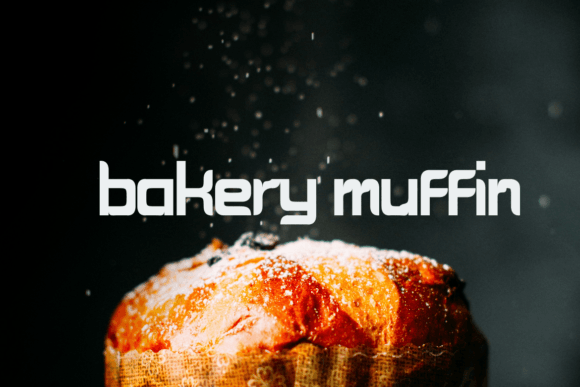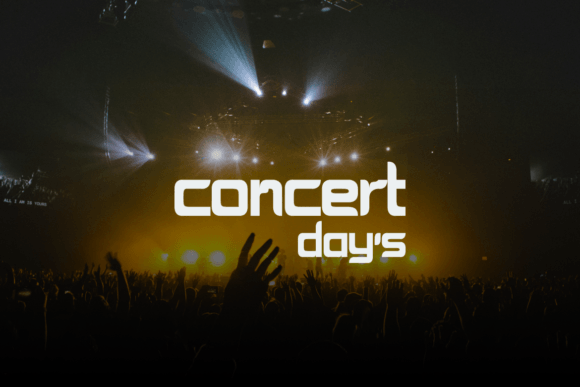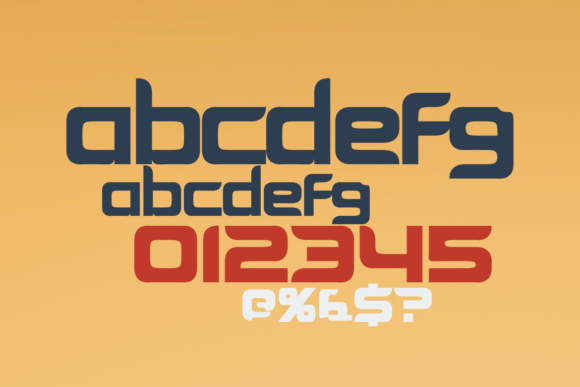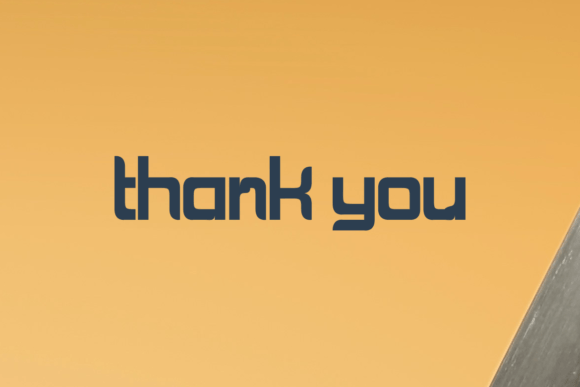
Introduction to Jiger Finder Font
Imagine you’re in the midst of a vibrant music festival, surrounded by the pulsating rhythm and the infectious energy of the crowd. The moment you glance at a poster or a flyer, it’s like a spark of creativity ignites within you. That’s the magic of the Jiger Finder Font – it has the power to elevate any design to extraordinary heights.
As a designer, you’re always on the lookout for that one design resource that can breathe life into your creative project. The Jiger Finder Font is that game-changer. With its unique blend of style and versatility, it can adapt seamlessly to any use case, from stickers to screen-printed t-shirts, and even flyers with a transparent background. The best part? It’s available for a free download, ensuring that you can bring your high-quality designs to life without breaking the bank.
Whether you’re a seasoned designer or just starting out, the Jiger Finder Font is an invaluable asset that can take your designs to the next level. So why settle for ordinary when you can unleash the extraordinary with this dynamic font?
Key Features of Jiger Finder Font
- Transparent background, making it easy to layer over various backgrounds without any visual obstruction.
- Features a bold and modern design, suitable for headings, titles, and other prominent text elements.
Honest Review: Jiger Finder Font
I recently had the opportunity to work with the Jiger Finder Font, a free download that’s been gaining popularity among designers. As a design resource, I was excited to see how it would perform in my creative project.
What works well with the Jiger Finder Font is its high quality and versatility. The font is available in various weights and styles, making it perfect for projects that require a mix of formal and informal typography. I also appreciated the transparent background, which allowed me to easily layer the font over different backgrounds.
- ✨ High-quality design with a professional finish
- ✨ Versatile with multiple weights and styles
- ✨ Transparent background for easy layering
However, I did encounter some limitations with the Jiger Finder Font. The font may not be suitable for projects that require a lot of bold or condensed text, as the font can become a bit pixelated at larger sizes. Additionally, the font is not ideal for use in small print, as the letters can become difficult to read.
Overall, I was impressed with the Jiger Finder Font and would recommend it for designers who are looking for a high-quality, free download for their creative projects.
- ⚠️ May become pixelated at larger sizes
- ⚠️ Not ideal for use in small print
The Jiger Finder Font is a high-quality, free design resource ideal for various creative projects. This versatile font features a transparent background, making it suitable for both light and dark backgrounds.
Tips for Getting the Most Out of Jiger Finder Font
Experiment with different font sizes, colors, and styles to achieve the desired effect in your design project.
The Jiger Finder Font is ideal for various design projects, including logos, brochures, posters, and social media graphics.
Can I use the Jiger Finder Font with a transparent background?
Yes, the Jiger Finder Font has a transparent background, making it perfect for designs that require a high level of customization and flexibility. This feature allows designers to easily integrate the font into their designs, without worrying about background compatibility issues.